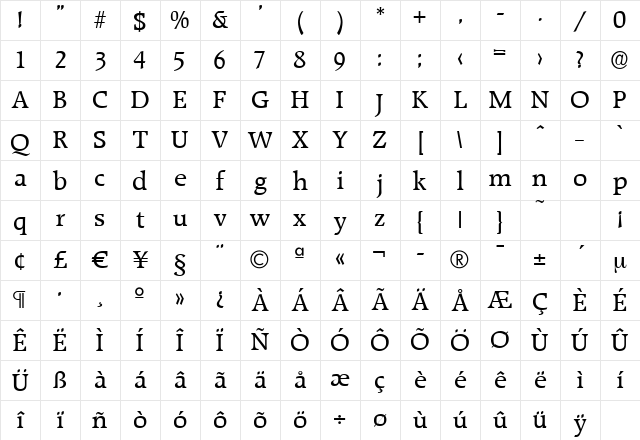
AliBecker Regular
Design Context for AliBecker
AliBecker is a composed and adaptable typeface that performs quietly and consistently across a wide range of design contexts.